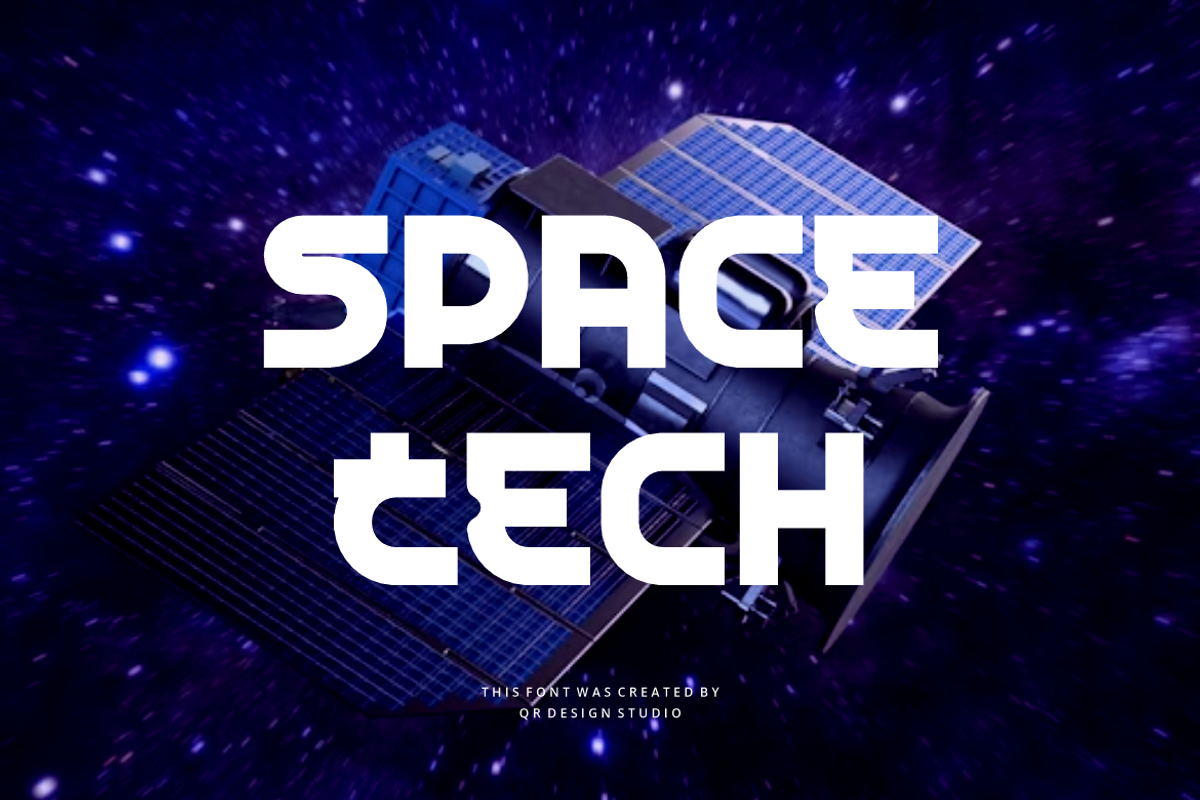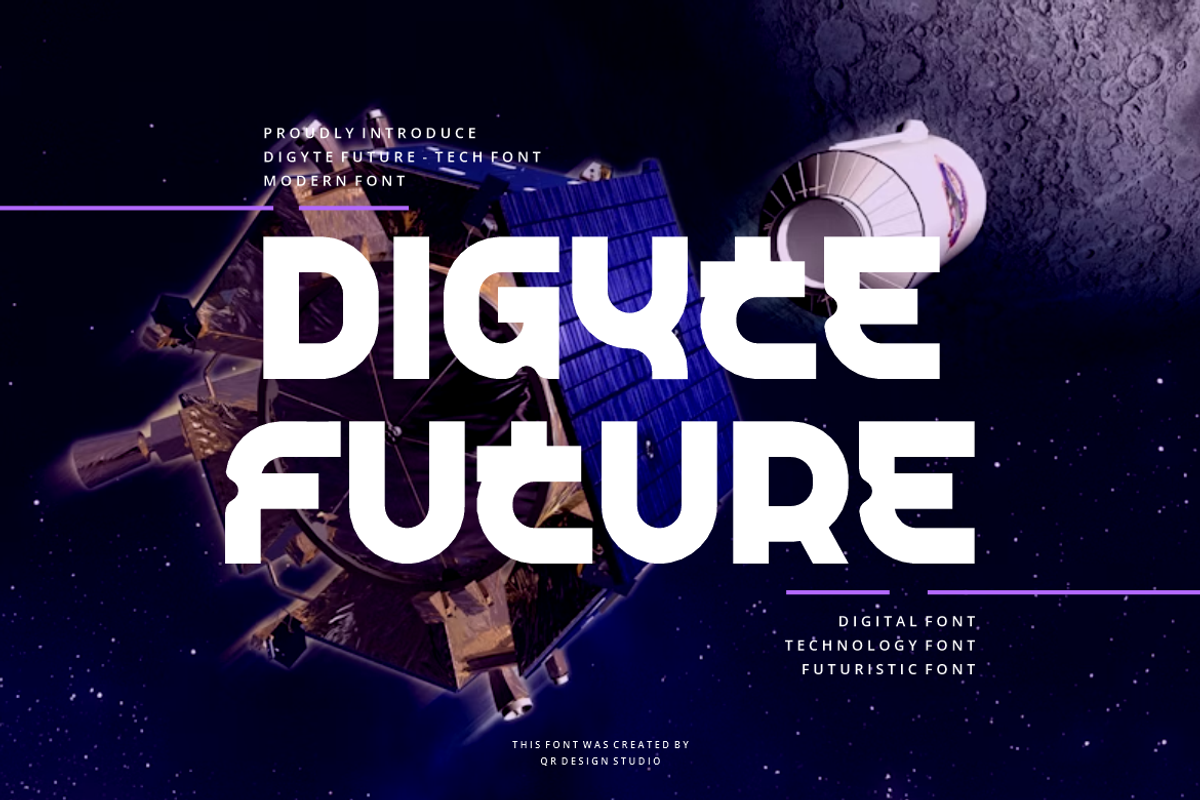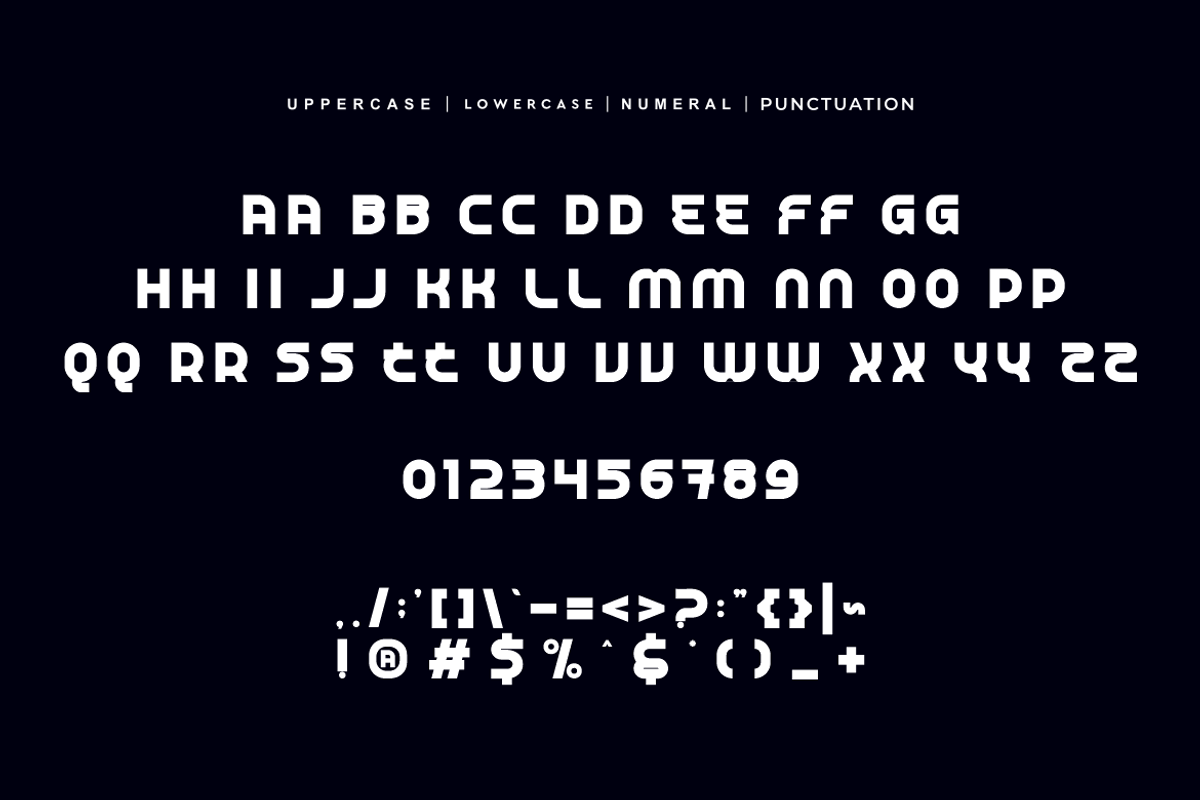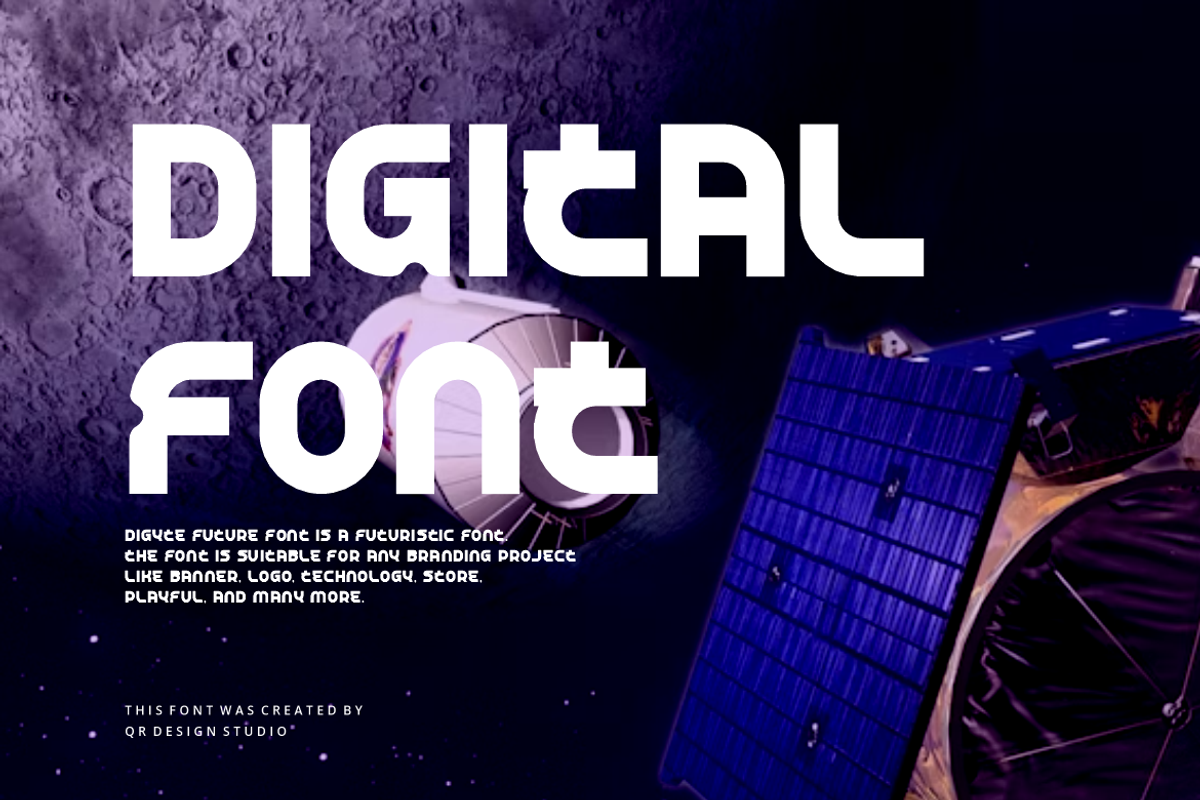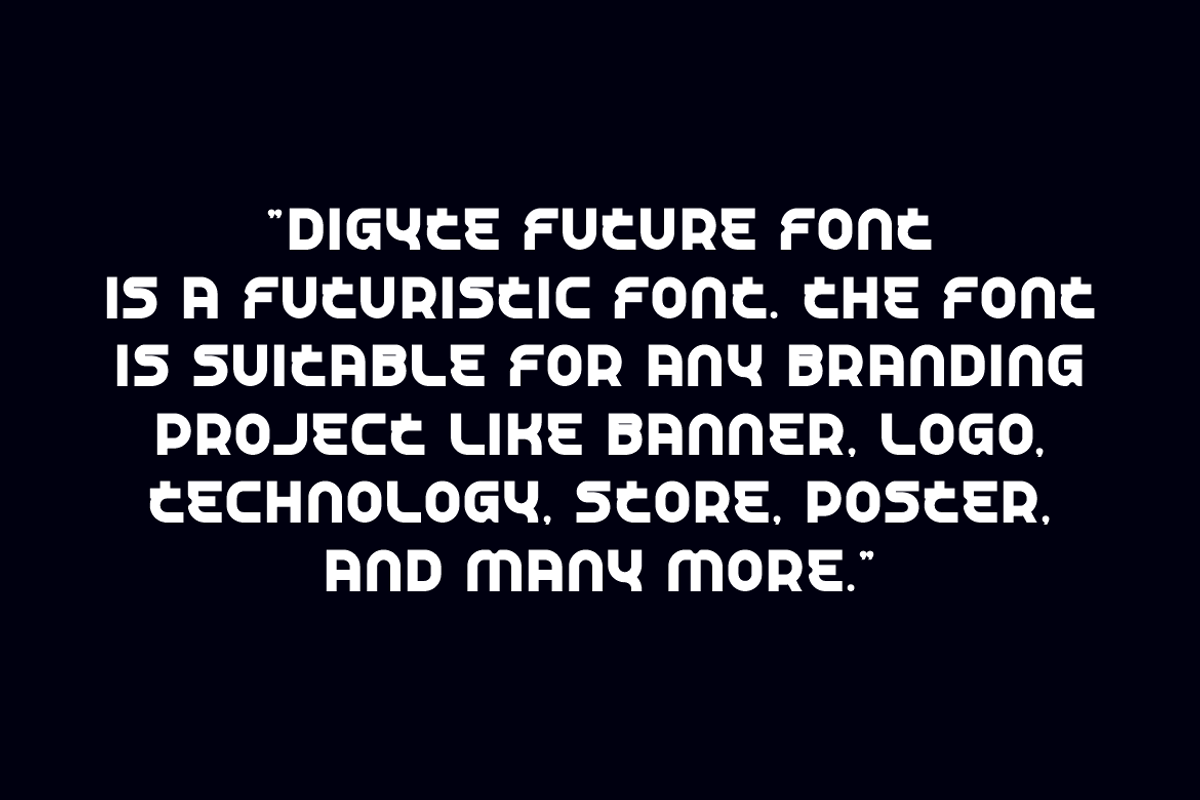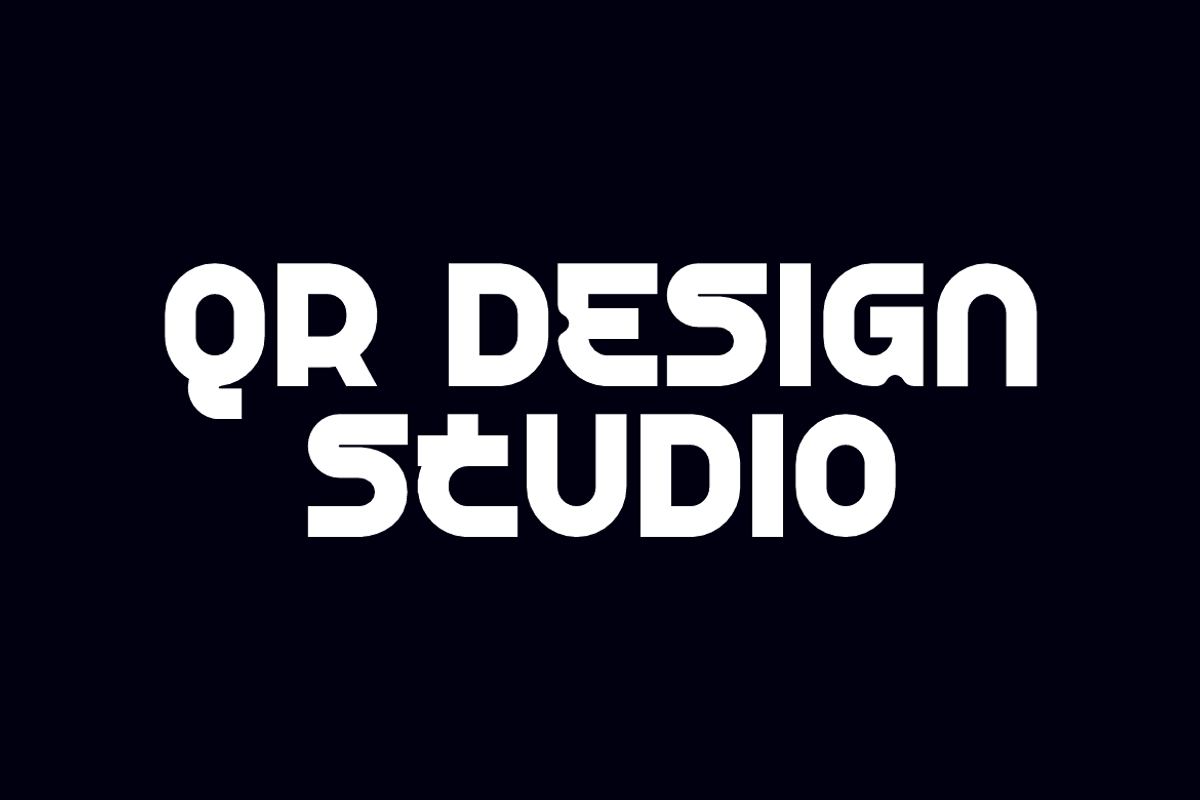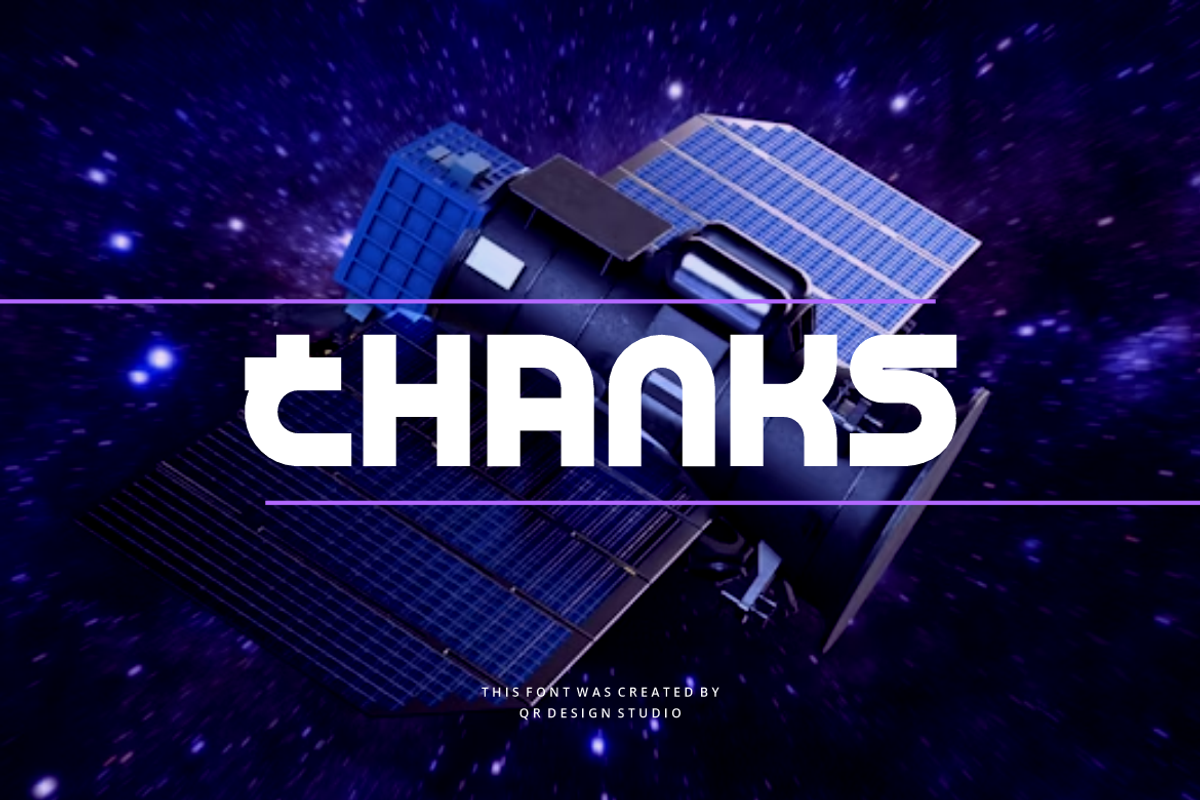
Digyte Future - Digital Space Font
Digyte Future Font is a bold and authentic display font. The font is suitable for any branding project like poster, logo, futuristic, and many more. Outstanding in a wide range of contexts.